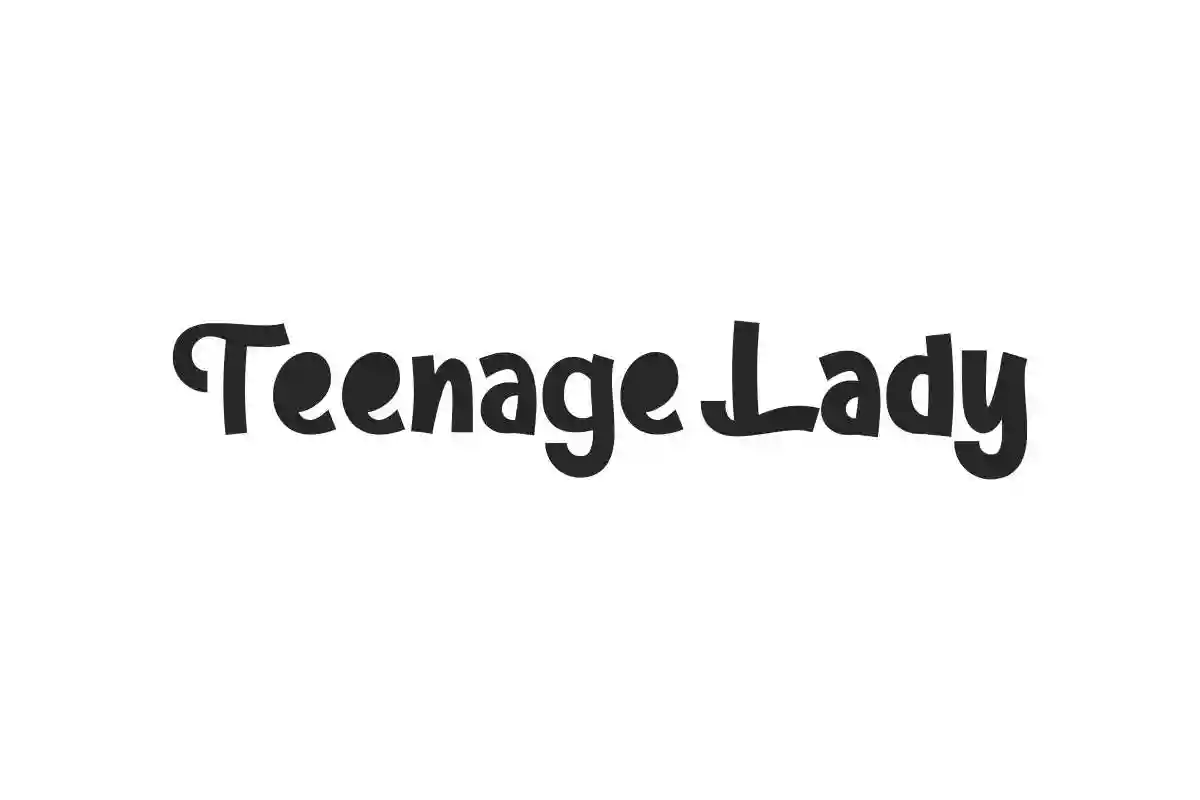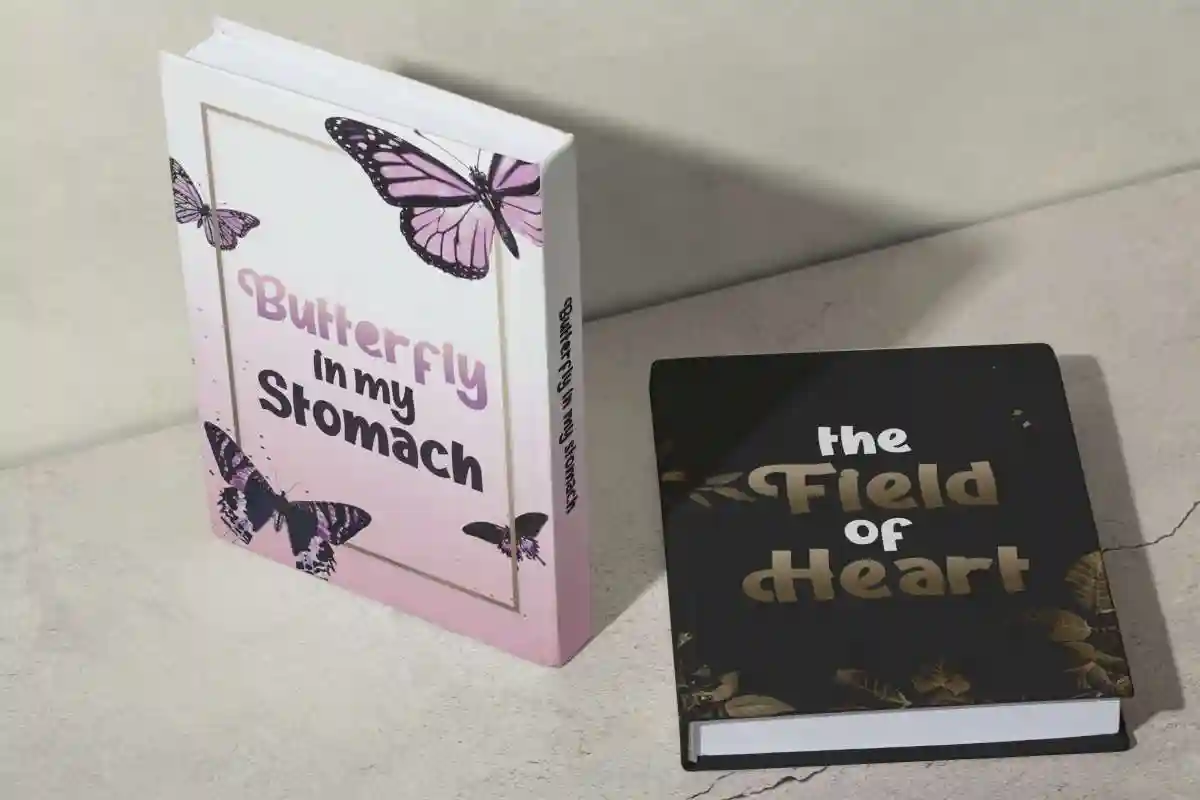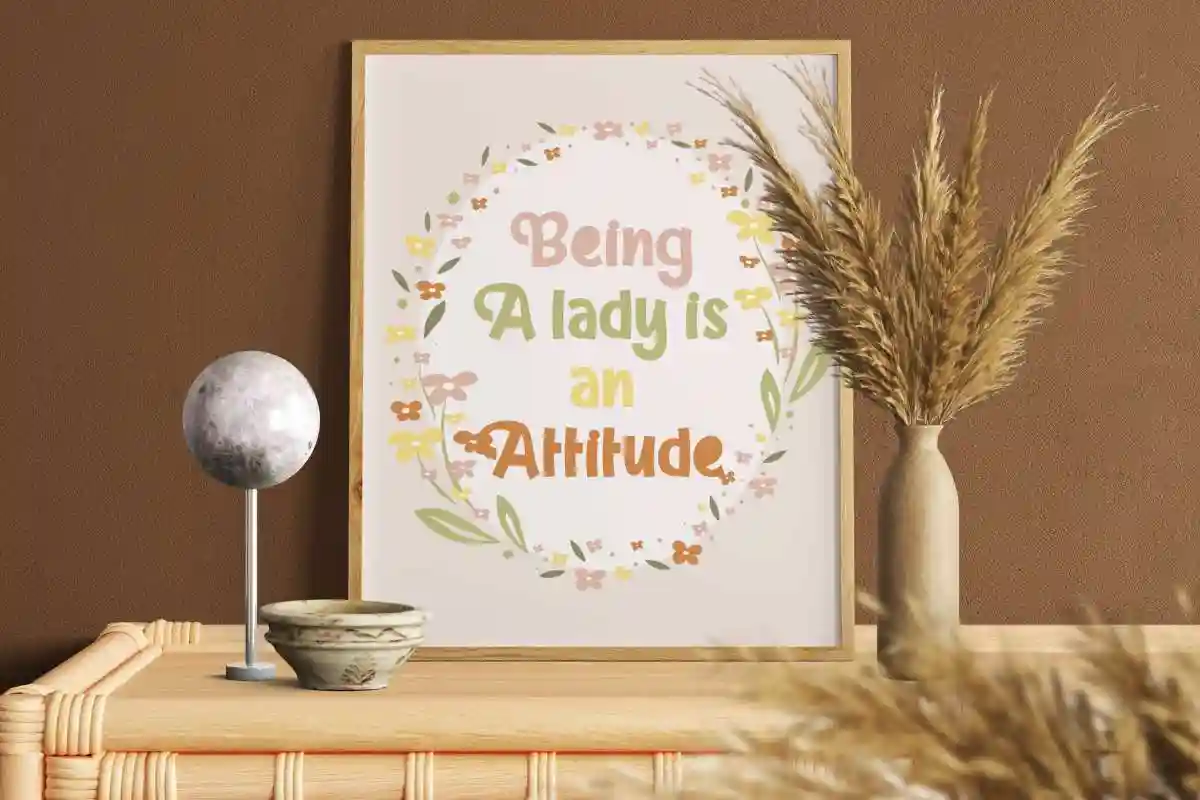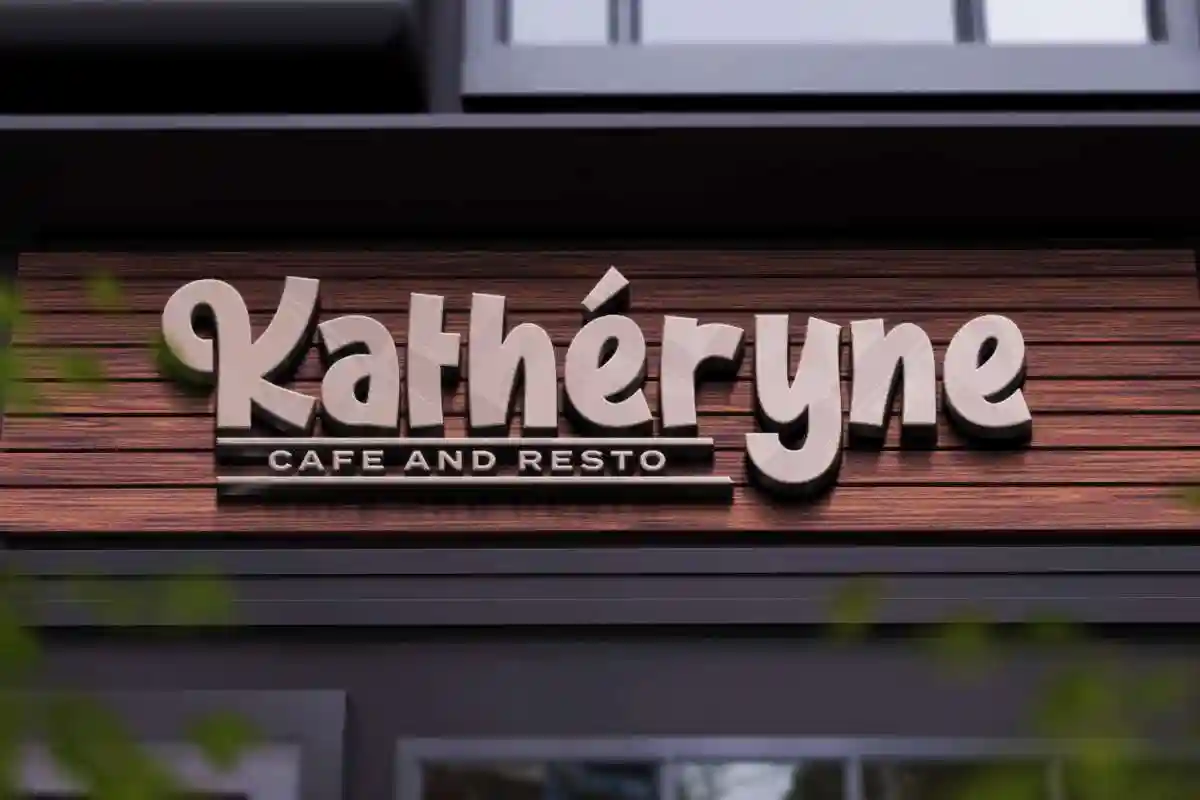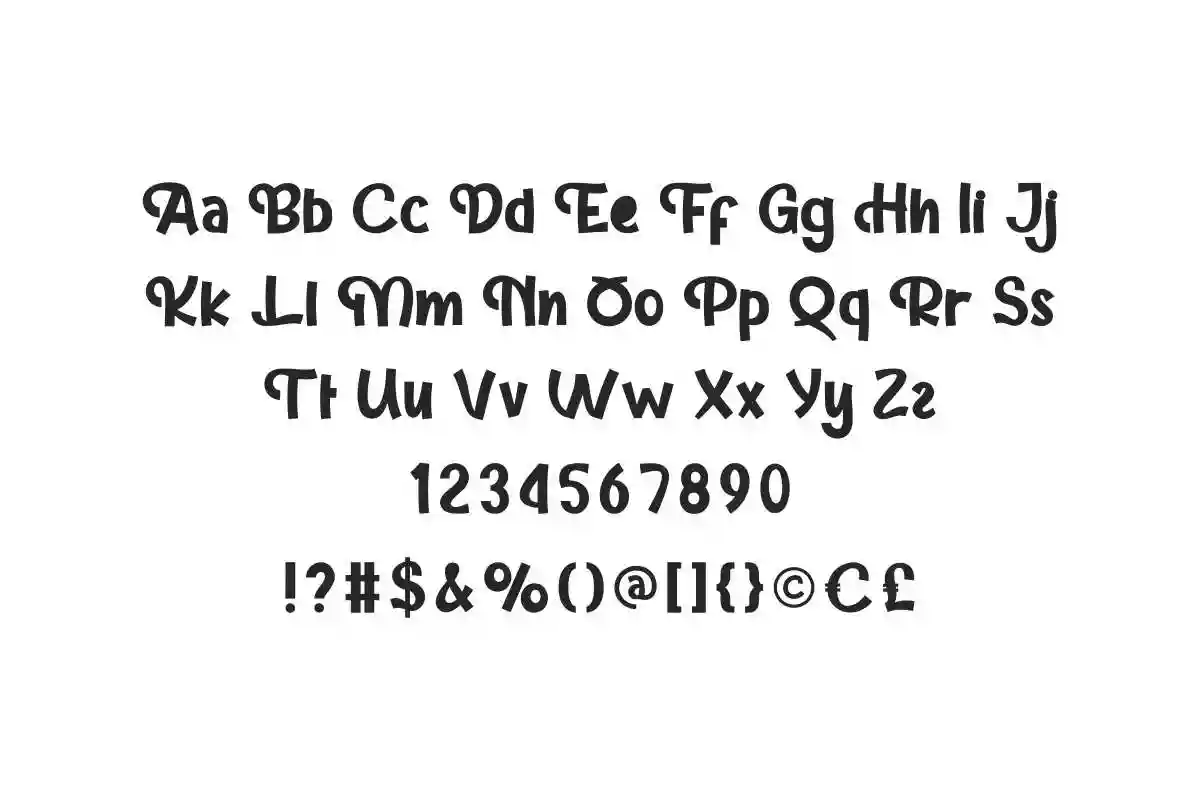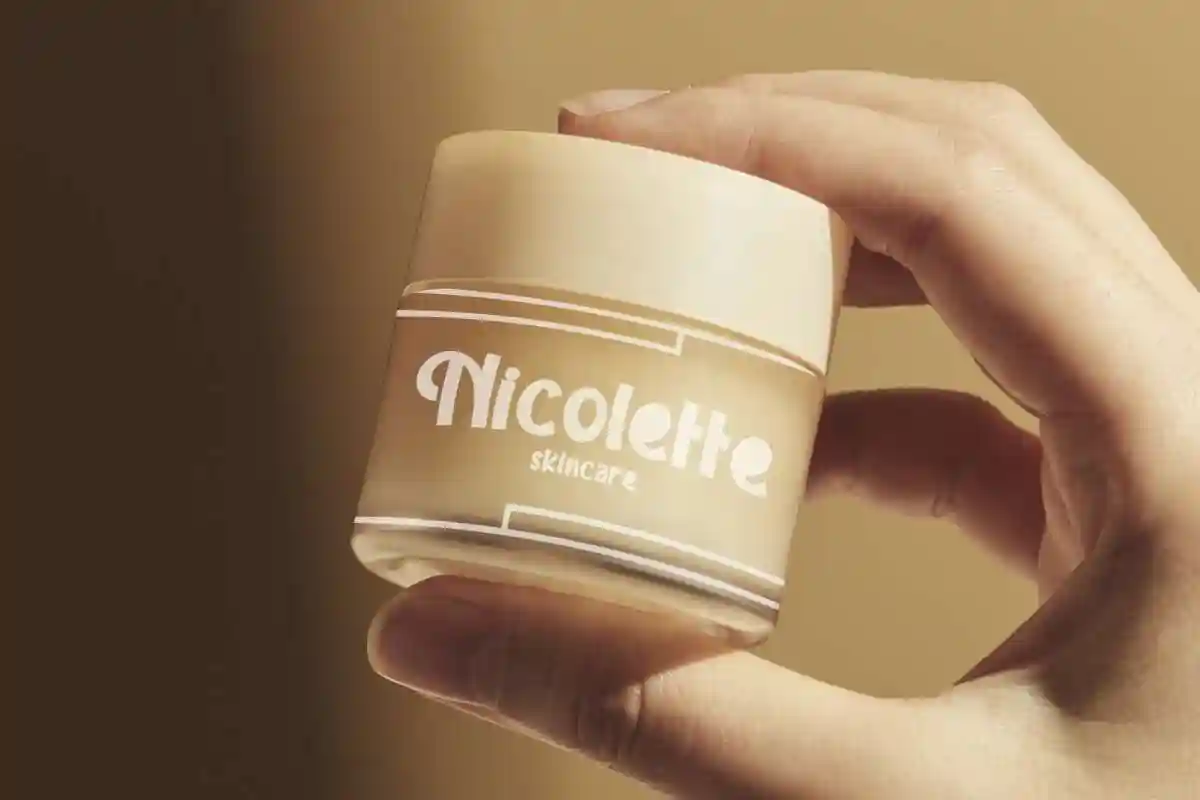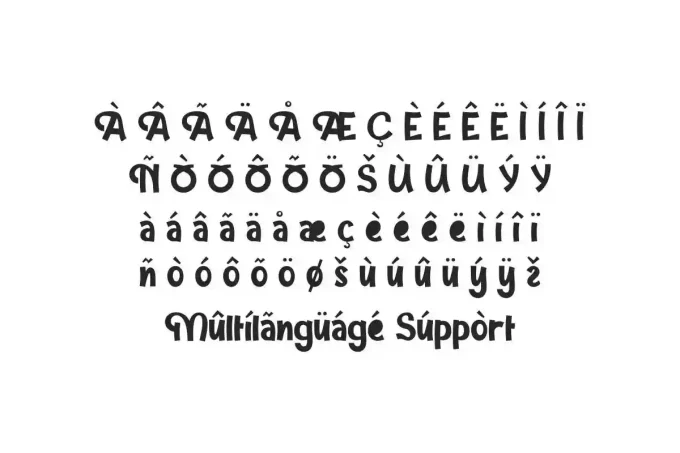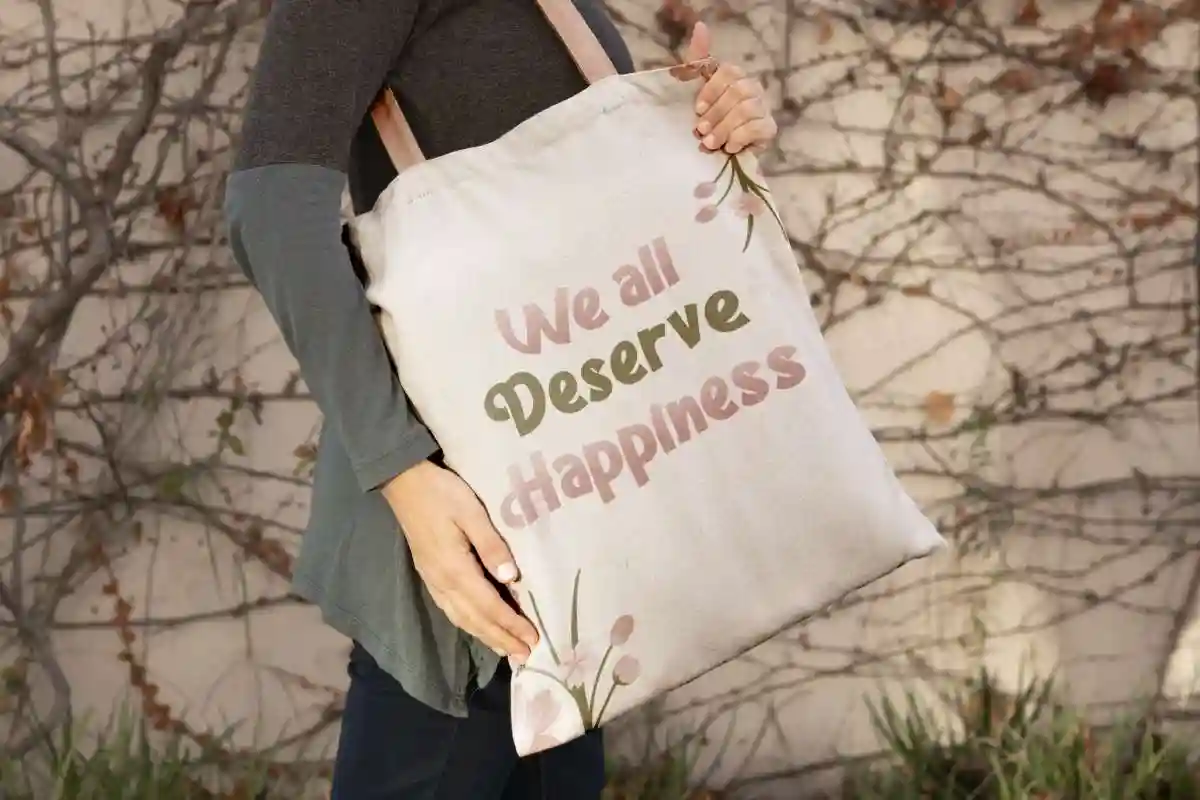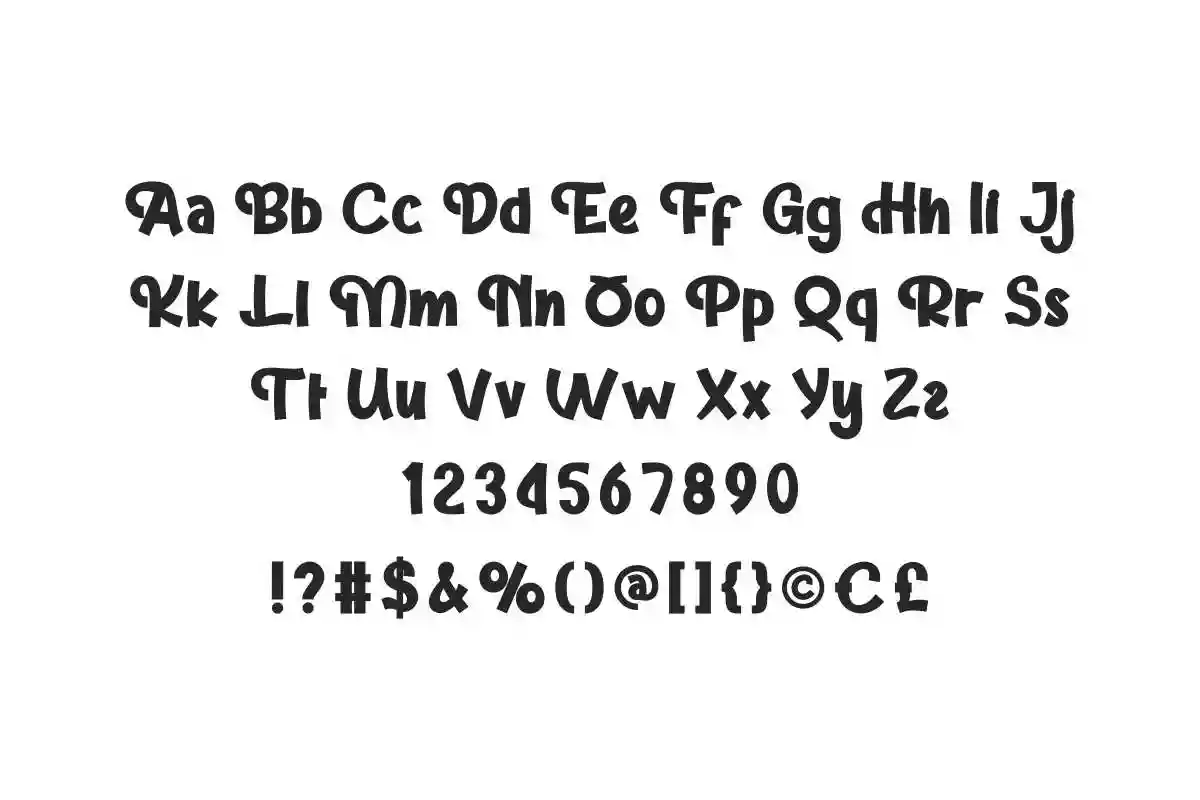
Teenage Lady Font is a playful font of handwritten type, specially created by NihStudio. Use this to add a unique look to cover design, restaurant, sign, etc.
Teenage Lady Font is a playful handwritten font with vintage style. This font has two styles offered, namely Regular and Bold, which will give your designs a stylish look, such as brand logo, cover, header, label, quotes, screen print, signage, sticker, watermark, and much more!
Teenage Lady Font comes with a full set of Uppercase and Lowercase Basic Characters, Number, Punctuation, Symbol. This font has its own thickness and twisty curl shape which makes it unique and will add to the aesthetics of the font. Use this for your business industry such as, author, café, clothing brand, handicrafts, restaurant, etc.